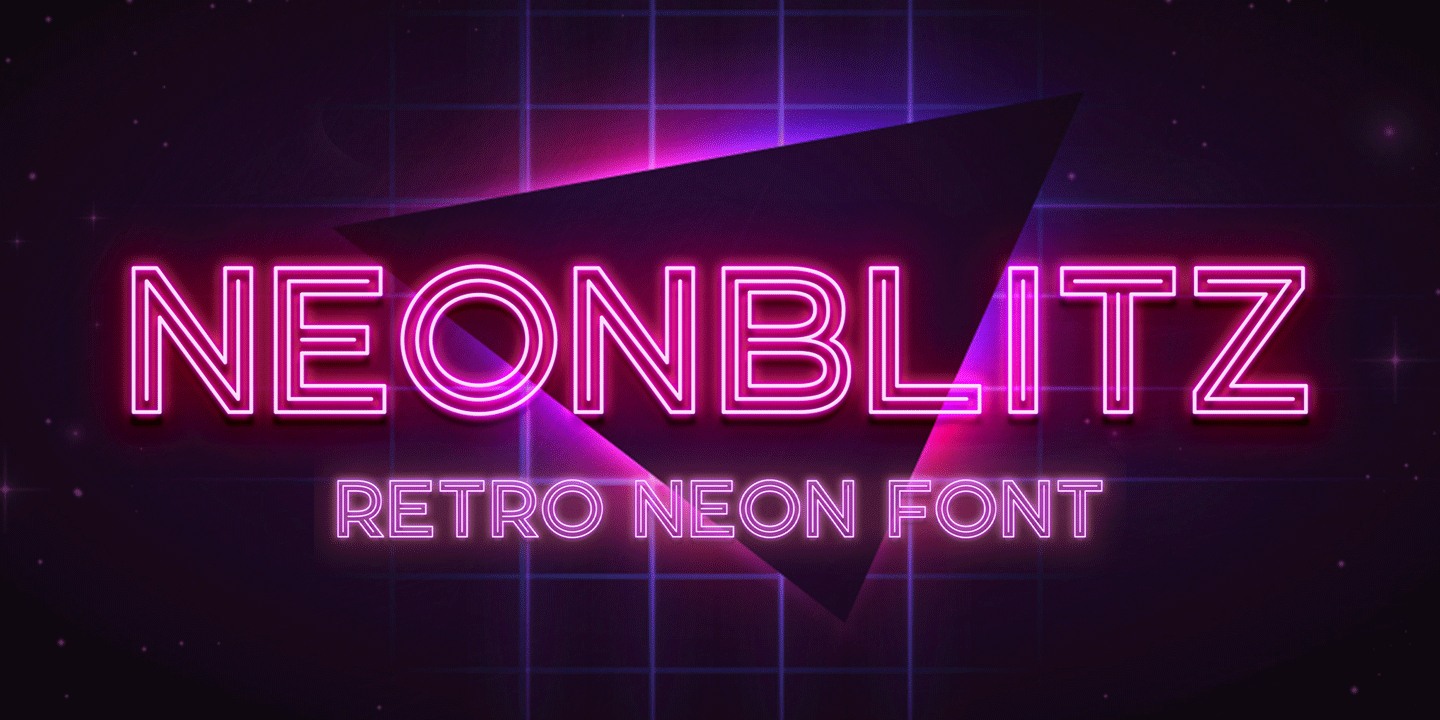
Neonblitz Font is ideal for cyberpunk gaming graphics, electric nightclub branding, neon sign advertising, high-energy electronic music events, futuristic tech startups, electric vehicle marketing, lightning-fast delivery services, electric entertainment venues, high-voltage promotional materials, and electrifying digital experiences.
What makes Neonblitz Font exciting is its electric energy and lightning-fast dynamism that captures the essence of pure electrical power with blazing speed and neon brilliance. This electrifying typeface embodies the spirit of electric innovation with its charged character forms and lightning-inspired proportions that evoke neon lights crackling to life in dark city streets, electric bolts illuminating storm clouds, and the kind of high-voltage energy that powers the digital age with unstoppable electric force. The font's electric character creates an immediate surge of energy and the kind of lightning-fast impact that electrifies audiences.
Neonblitz Font family includes regular weight with electrically crafted character designs featuring lightning curves and high-voltage proportions. The typeface maintains excellent readability while showcasing its distinctive electric personality through dynamically designed letterforms that seem to pulse with electric current and radiate the brilliant glow of neon signs illuminating the night.
Electric brand designers consistently choose Neonblitz Font Free Download for projects requiring authentic electric appeal and high-voltage credibility. This remarkable typeface brings the power of electric energy to brand communications, combining neon aesthetics with lightning-fast dynamism to create unforgettable electric experiences. The electrically designed characters ensure maximum voltage impact across all applications, making it essential for tech companies, entertainment venues, and any organization seeking to communicate the transformative power of electric energy and the brilliant illumination that comes from embracing the electrifying speed of modern innovation through Neonblitz Font Free Download.